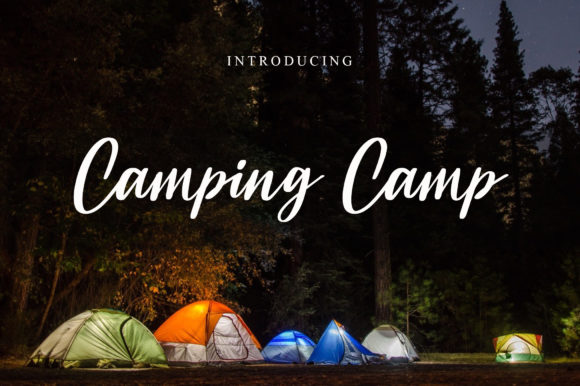
The Perfect Camping Companion: Exploring the Camping Camp Font
I still remember the design project that led me to discover the Camping Camp font. I was working on a wedding invitation design for a close friend, and I was struggling to find the right font that captured the casual yet elegant vibe of the event. That’s when I stumbled upon Camping Camp, a beautiful handwritten font that instantly resonated with me. In this article, I’ll share my experience with Camping Camp, its features, and how to make the most of it in your designs.
An Honest Review of Camping Camp
- ✨ Flowing and versatile handwritten style
- ✅ Casual yet elegant characters
- ✅ Perfect for logos, wedding invitations, headings, t-shirts, letterhead, signage, labels, and more!
- 💫 Beautifully crafted to add a personal touch to any design
While Camping Camp is an amazing font, there are a few things to keep in mind:
- ⚠️ Some characters may not work well in very small sizes due to the handwritten nature of the font.
- 🤔 Limited availability of certain special characters, but this can be addressed by using the font’s OpenType features.
A Practical Guide to Using Camp
Using Camp in Adobe Photoshop and Illustrator
For more advanced designers, Adobe Photoshop and Illustrator offer a range of possibilities for working with Camping Camp:
- Explore the font’s OpenType features, such as glyphs and stylistic alternates, to add more variety to your design.
- Use the font’s built-in ligatures and swashes to create a more elegant and sophisticated look.
The Story Behind Camping Camp
Camping Camp was designed with the intention of creating a font that captures the carefree spirit of outdoor adventures. The designer aimed to craft a font that’s both elegant and approachable, perfect for a wide range of creative projects. While the exact story behind the font’s creation is unclear, it’s evident that Camping Camp was designed to bring a touch of warmth and personality to any design.
Q: What type of projects is Camping Camp best suited for?
A: Camping Camp is versatile and can be used for a wide range of projects, including logos, wedding invitations, headings, t-shirts, letterhead, signage, labels, and more!
Q: Is Camping Camp a difficult font to read?
A: While Camping Camp is a handwritten font, it’s designed to be legible and easy to read. However, it’s best suited for display text or headings rather than body text.